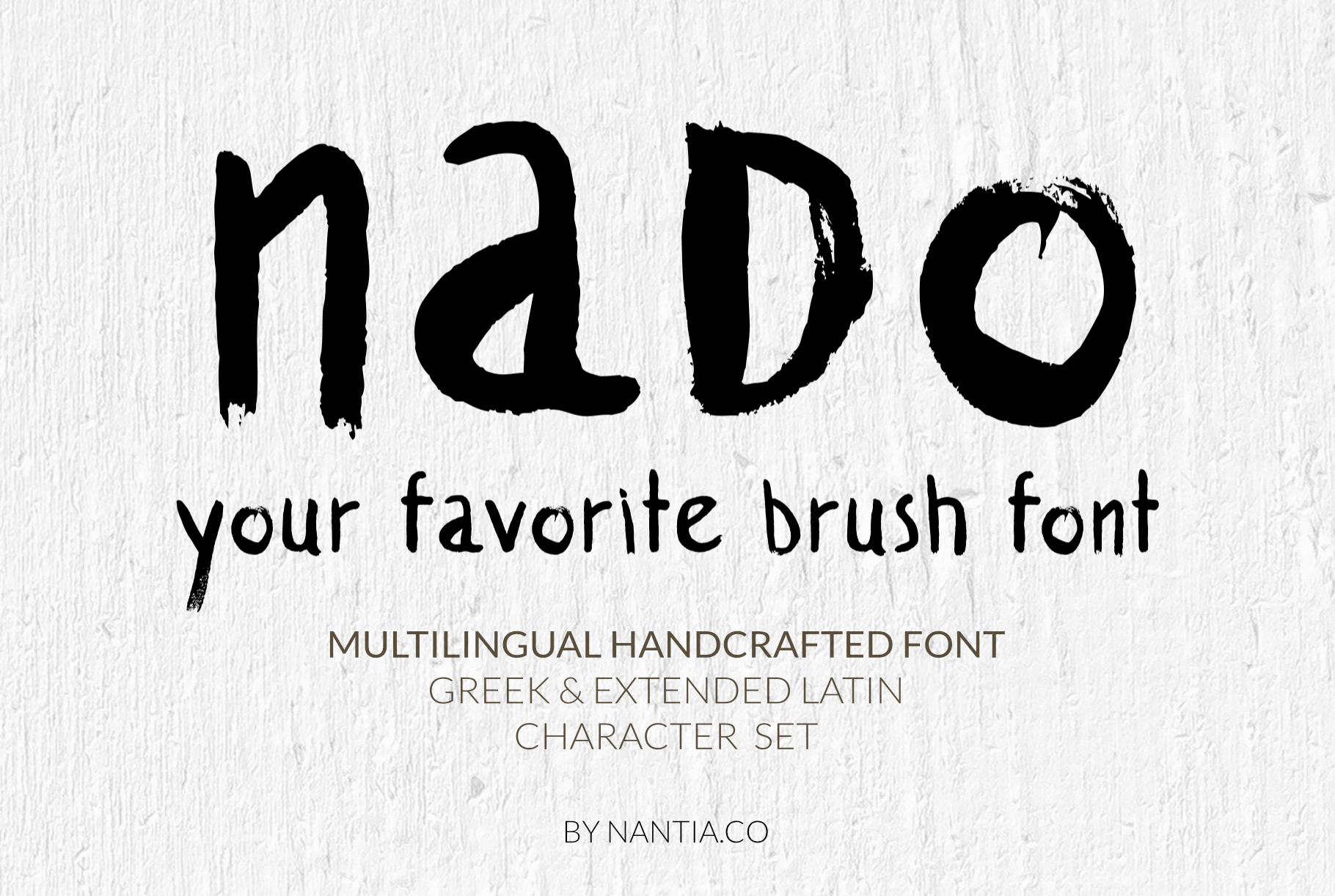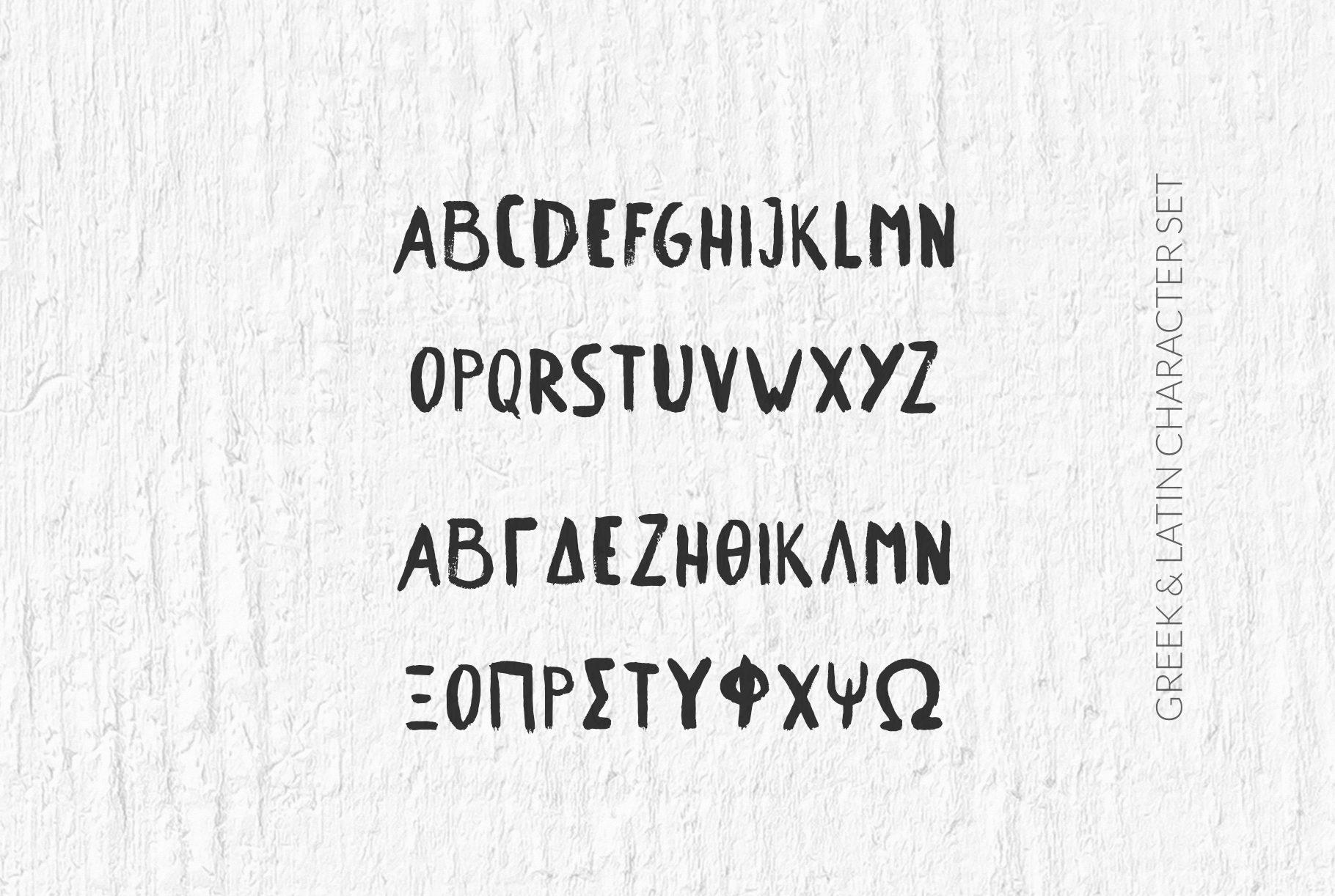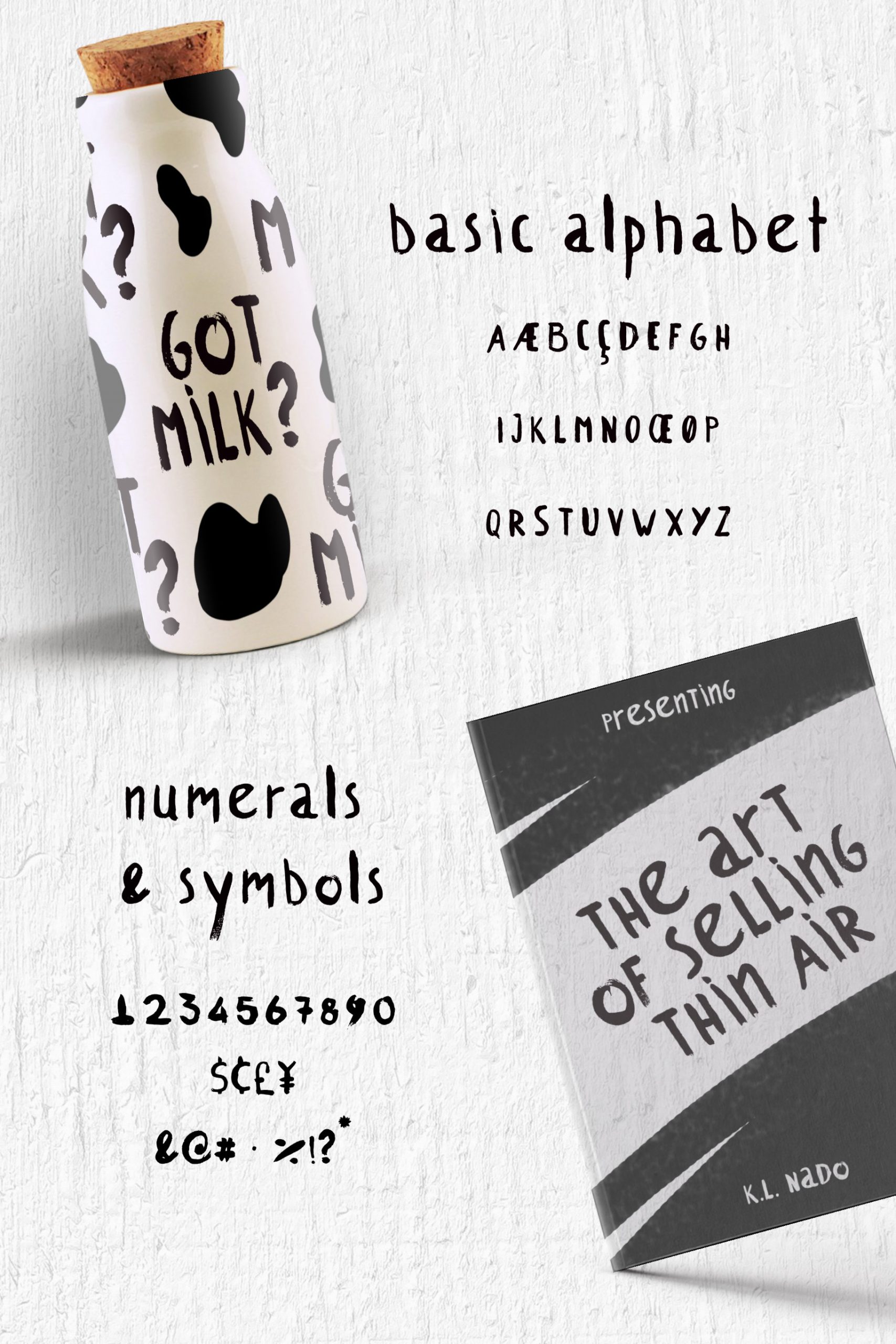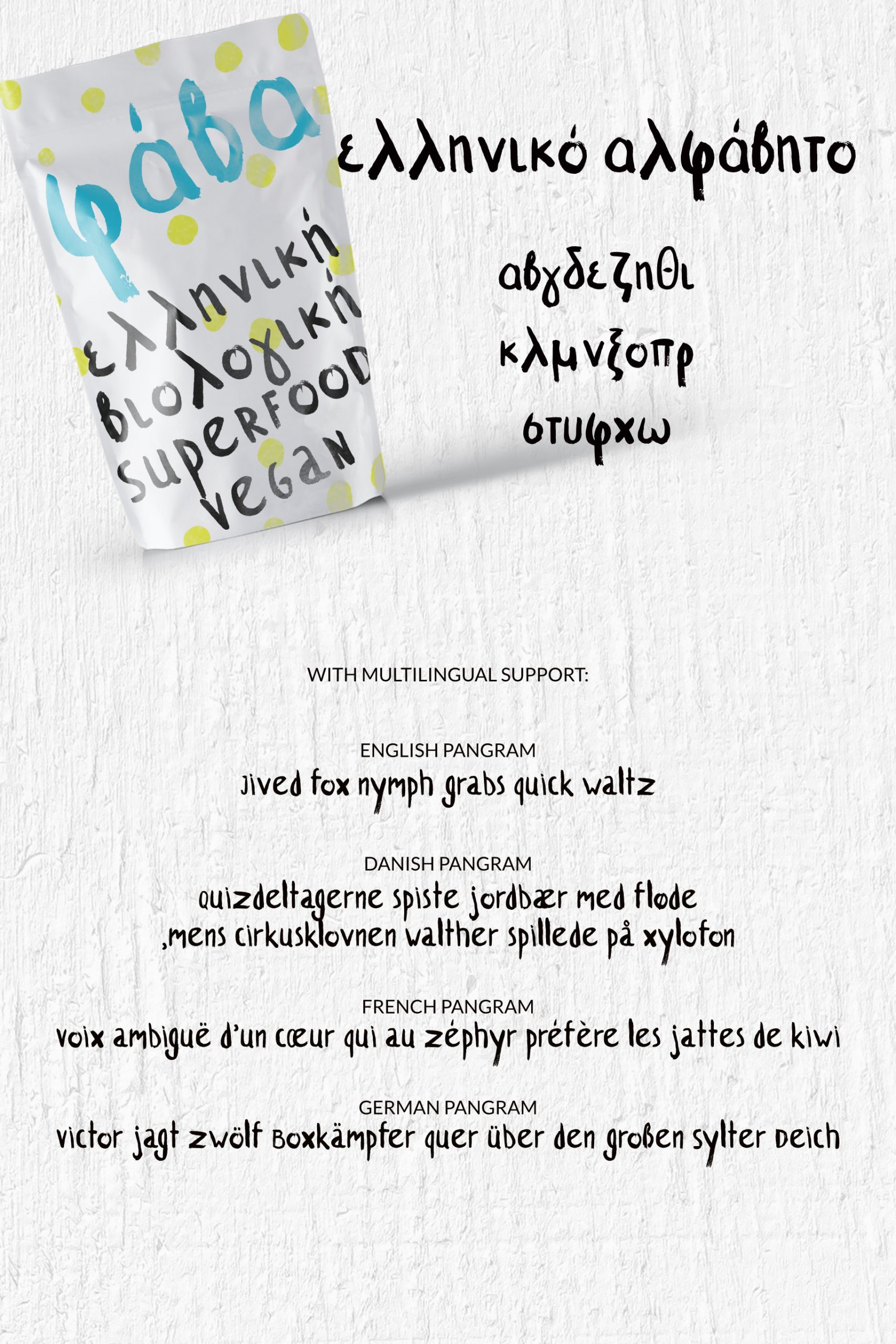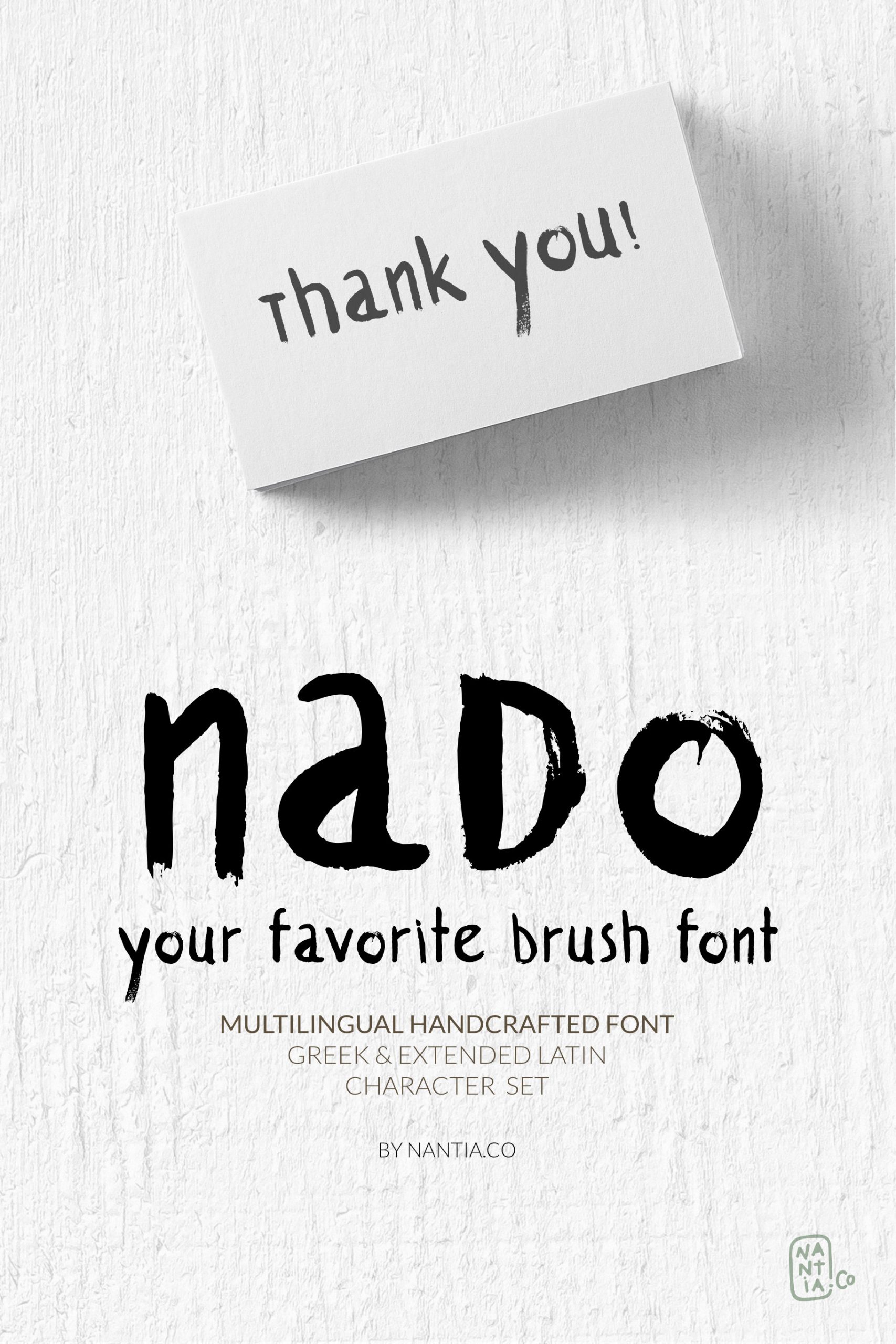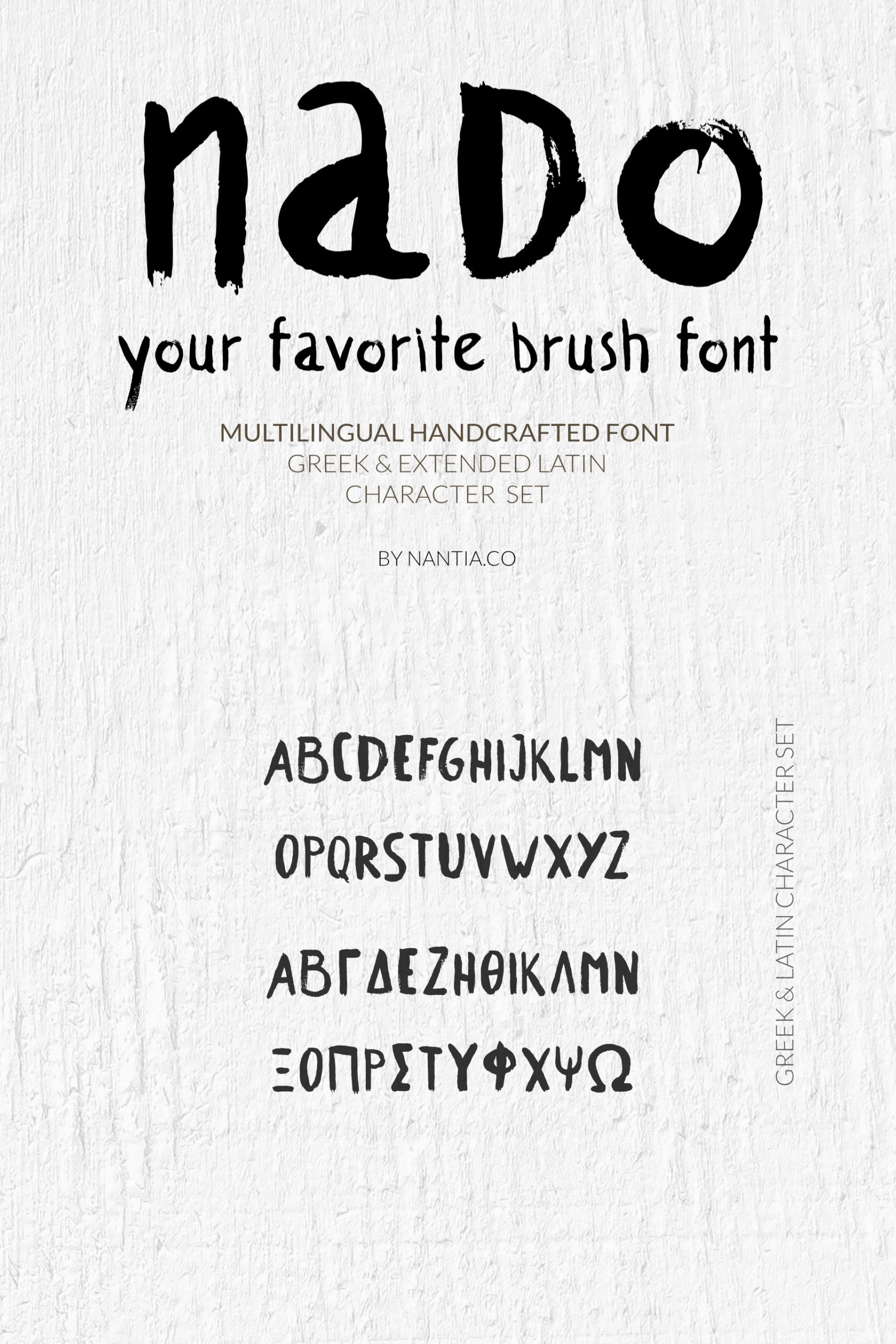
naDo Brush Font | Your Favorite Brush font
The naDo Brush Font will be definitely your favorite brush font. It is a 100% hand-drawn decorative font with which you can achieve a handwritten-type lettering feeling. Also, this typeface has a really nice flow so you use it in a larger text if you want to give them a touch of personality. In fact, this multilingual font includes diacritics for a wide range of language support.
The shabby-chic style of this dry brush font is perfect for your graphic design needs like social media quotes, blog headers, posters, art projects and why not branding, packaging, and logotypes.
In conclusion, naDo Brush Font is a dry brush typeface with: